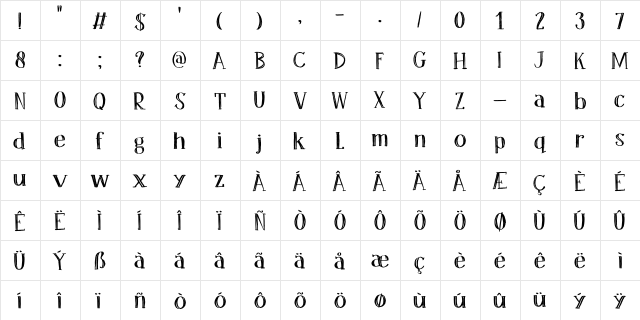
DK Office Squeeze Regular
Design Context for DK Office Squeeze Typeface
DK Office Squeeze takes a measured approach to typography — its balanced proportions and neutral character make it a reliable workhorse for both digital and print work.